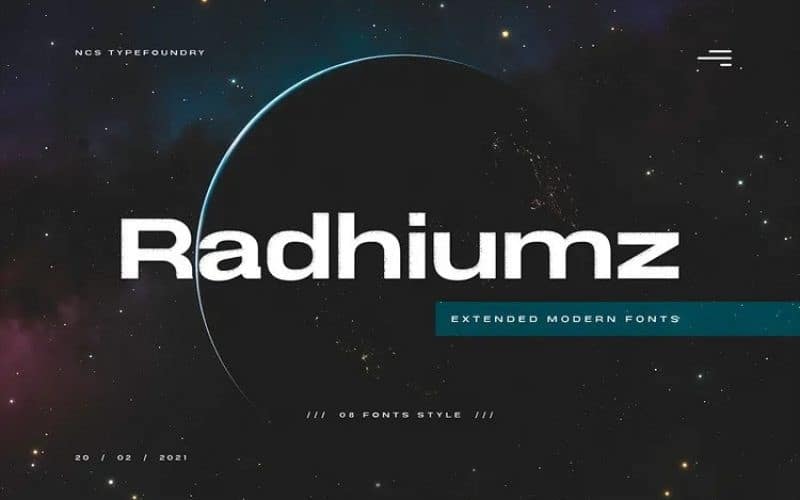
Radhiumz Font
Radhiumz Sans Serif Font
Radhiumz Sans Serif Font is a modern, clean and stylish sans serif font with great versatility. It’s designed and shared by Namara Creative Studio. This extended font can be used for bold editorial statements, graphic heavy prints or just as a simple logo. This new type will definitely make your designs stand out and unique.